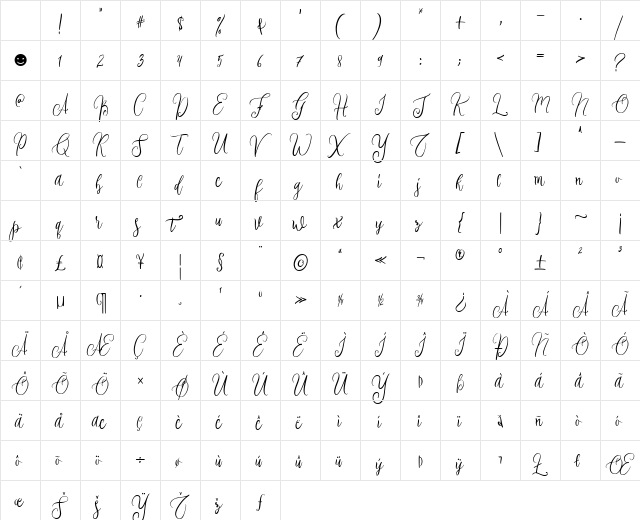
Complete BeautyGreen Regular glyph index. Displaying only characters natively supported by BeautyGreen Regular font.
BeautyGreen is a composed and adaptable typeface that performs quietly and consistently across a wide range of design contexts.